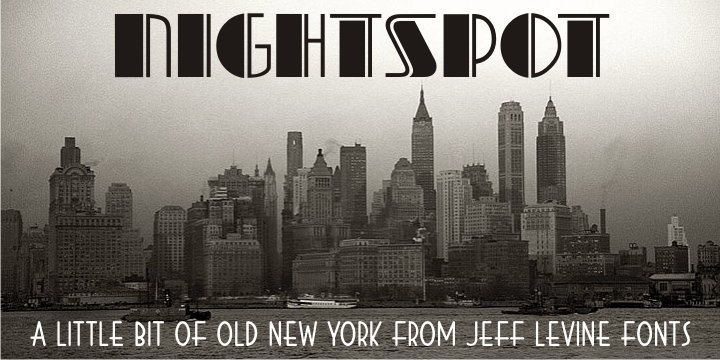
Nightspot
Nightspot JNL was modeled from one of many display alphabets created by the late sign painter and lettering expert Alf Becker. His work has graced the pages of Signs of the TimesĀ® magazine for decades.
Nightspot JNL Regular by Jeff Levine Fonts